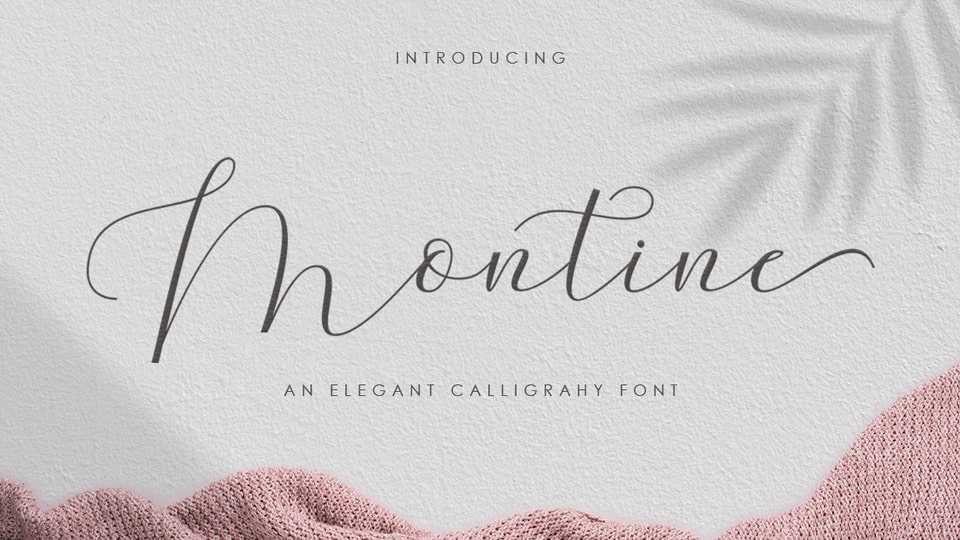
Download Montine Script font, an elegant modern calligraphy typeface that looks casual and pretty with swashes, perfect for wedding and romantic design.